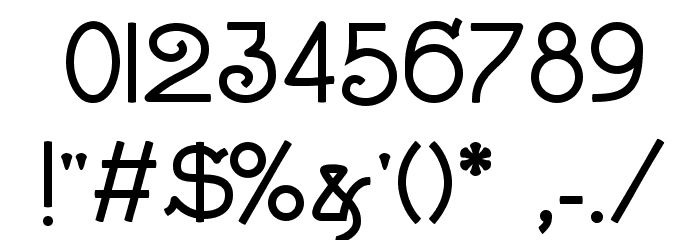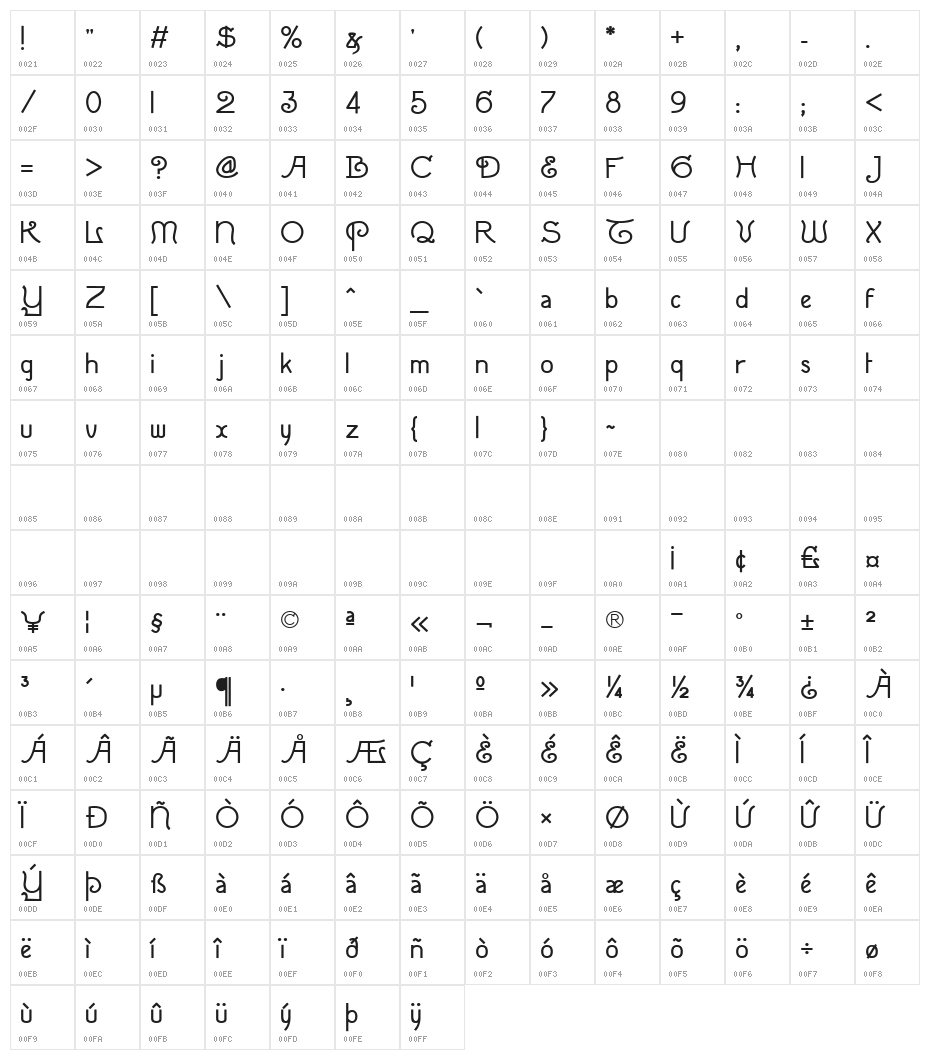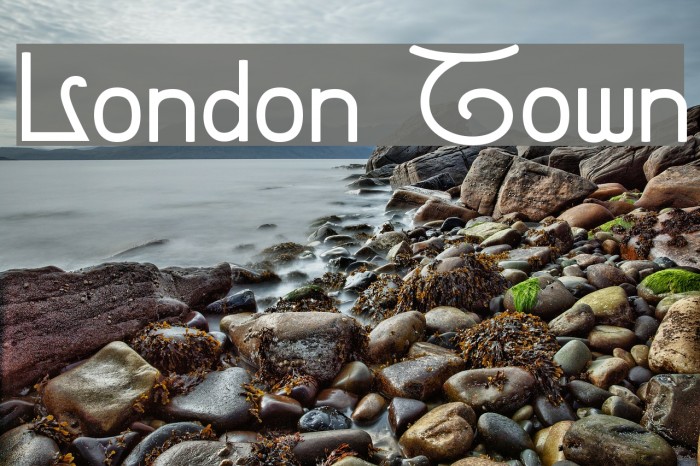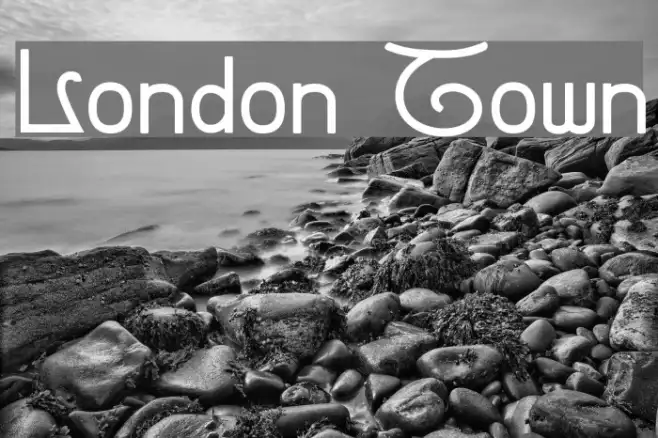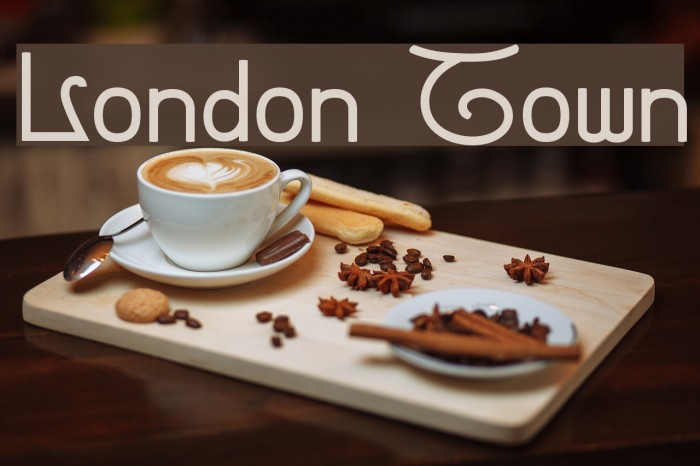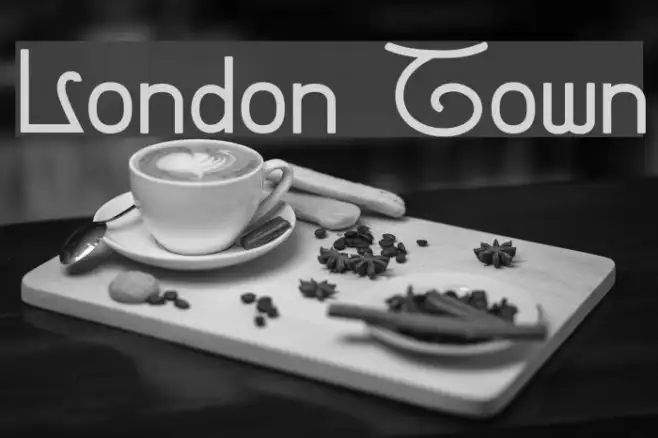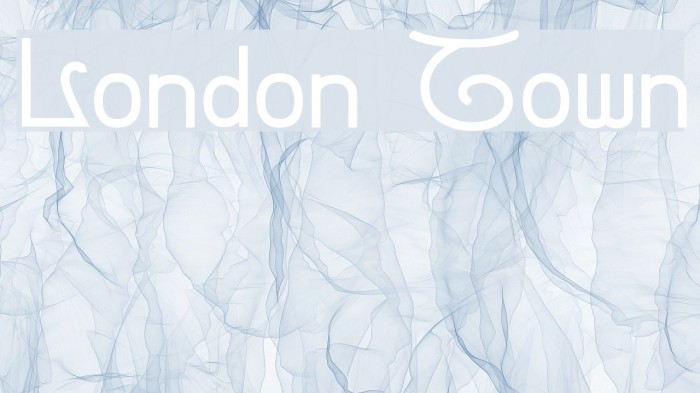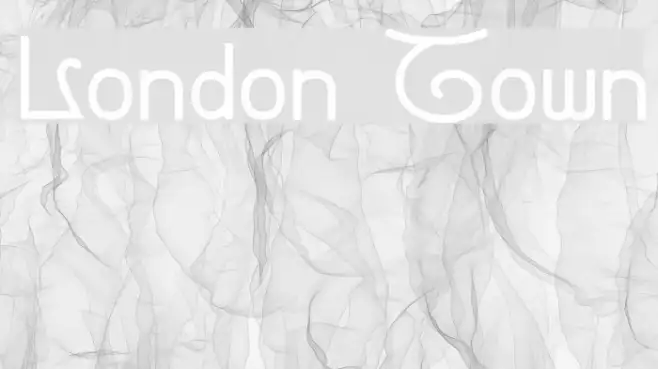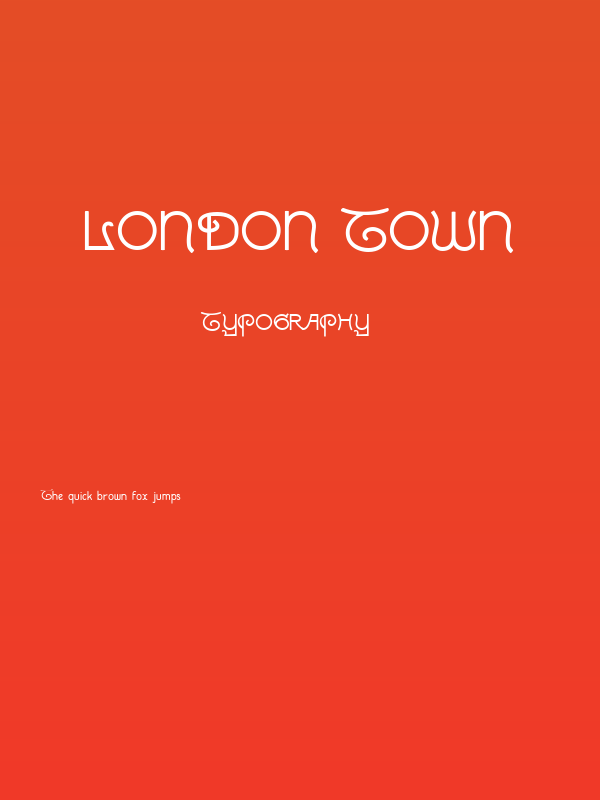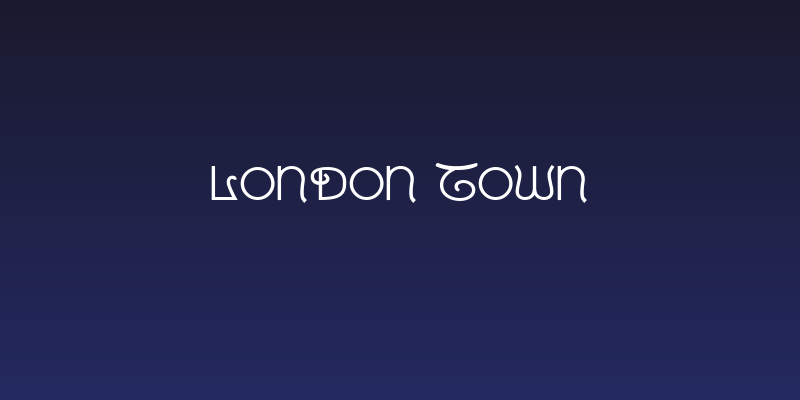
London Town Font
London Town Description
This font features a unique blend of modern and decorative elements, characterized by its distinct curves and loops. The uppercase letters exhibit a playful yet sophisticated style, with some characters incorporating unexpected twists and turns. The lowercase letters maintain a consistent flow, complementing the uppercase with a slightly more subdued flair. Numbers and special characters follow the same design ethos, ensuring a cohesive look across all text elements. The font's overall appearance is both eye-catching and versatile, making it suitable for a variety of creative applications.